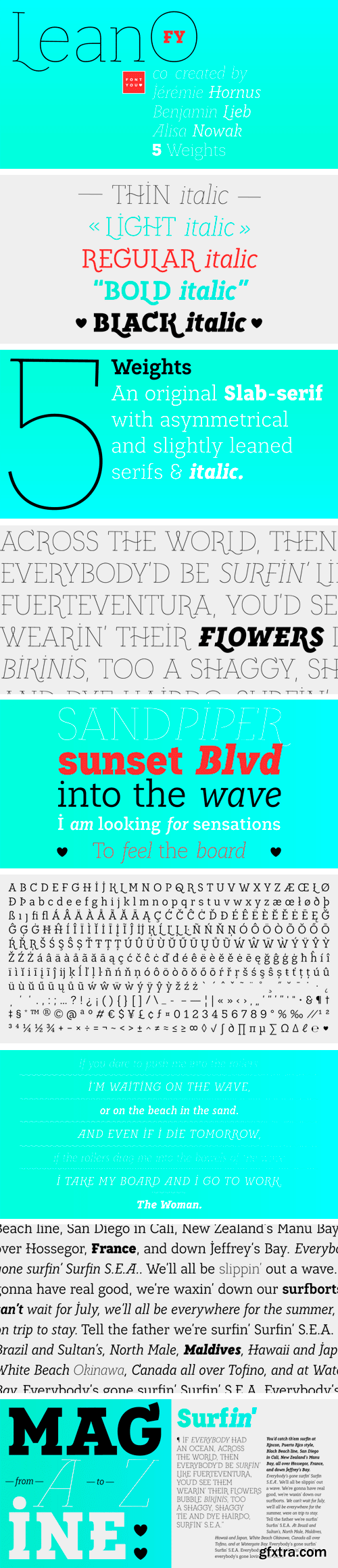
- LeanO FY, an original Slab-serif with asymmetrical and slightly leaned serifs. This unconventional typeface is developed in 5 styles. While the extreme weights like Thin and Black are perfectly adapted for display use, the regular weight presents a good legibility in text sizes.